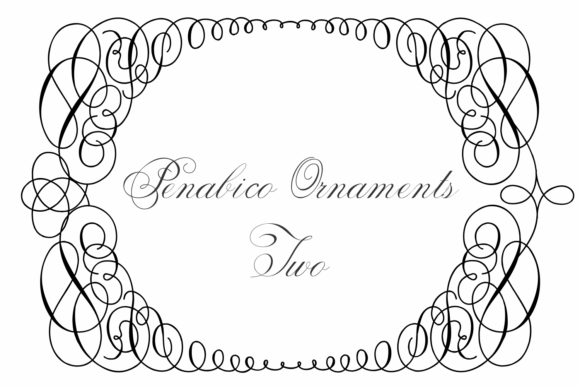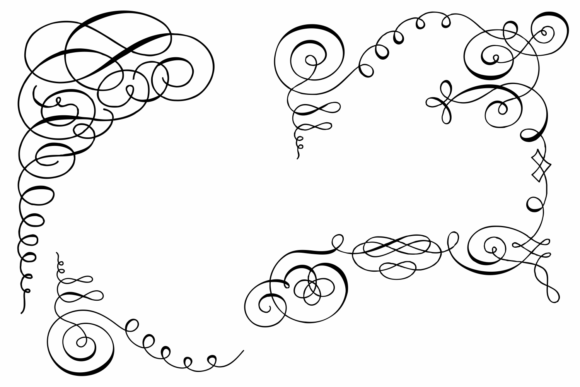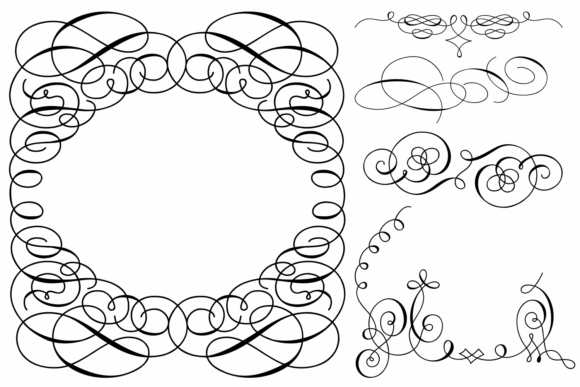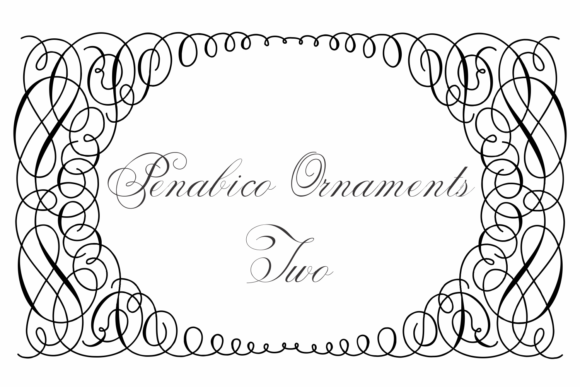
Penabico Ornaments Two Font
About Penabico Ornaments Two Font
Introducing Penabico Ornaments Two, a truly exquisite collection of dingbat ornaments designed to elevate and embellish your most special projects. With its stunning ornate designs, this dingbat set is the perfect choice for adding a touch of elegance and sophistication to your work.
Penabico Ornaments Two offers a wide range of intricately crafted dingbat ornaments that are sure to capture attention and enhance the visual appeal of your designs. Each ornament is meticulously designed with attention to detail, featuring delicate flourishes, swirls, and decorative elements that exude a sense of luxury and refinement.
Whether you’re working on invitations, greeting cards, wedding stationery, or any other project that calls for a touch of elegance, Penabico Ornaments Two is here to impress. These ornaments are carefully crafted to seamlessly integrate into your designs, enhancing their overall aesthetic and adding a touch of timeless beauty.
The ease of use is one of the key features of Penabico Ornaments Two. Simply select the desired ornament from the set and insert it into your design. The dingbat format ensures that you can easily incorporate these ornate elements into your work without the need for complex editing or additional software.
Penabico Ornaments Two is versatile, allowing you to use it across a wide range of creative projects. Whether you’re designing elegant wedding invitations, luxurious branding materials, or intricate illustrations, these ornaments will elevate your work and add a touch of sophistication.
Let Penabico Ornaments Two be your go-to resource for adding a touch of elegance and refinement to your designs. With its gorgeous, ornate designs and effortless usability, this dingbat set is sure to impress and inspire. Take your projects to the next level and let the beauty of Penabico Ornaments Two shine through.